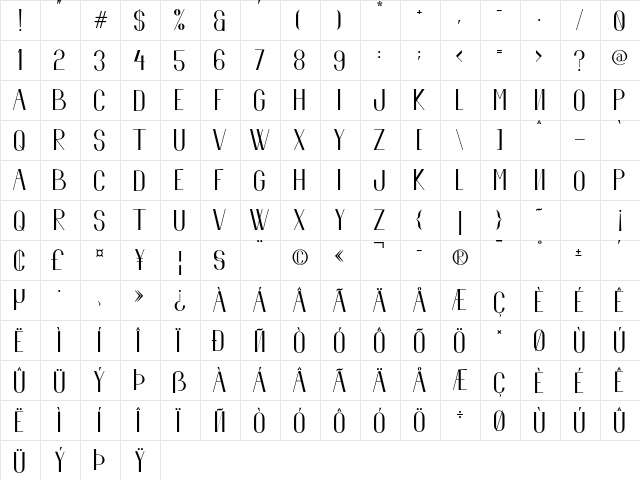
El Fonte Regular
| Designer | Gilar Studio |
Design Context for El Fonte Typeface
El Fonte is a composed and adaptable typeface that performs quietly and consistently across a wide range of design contexts.